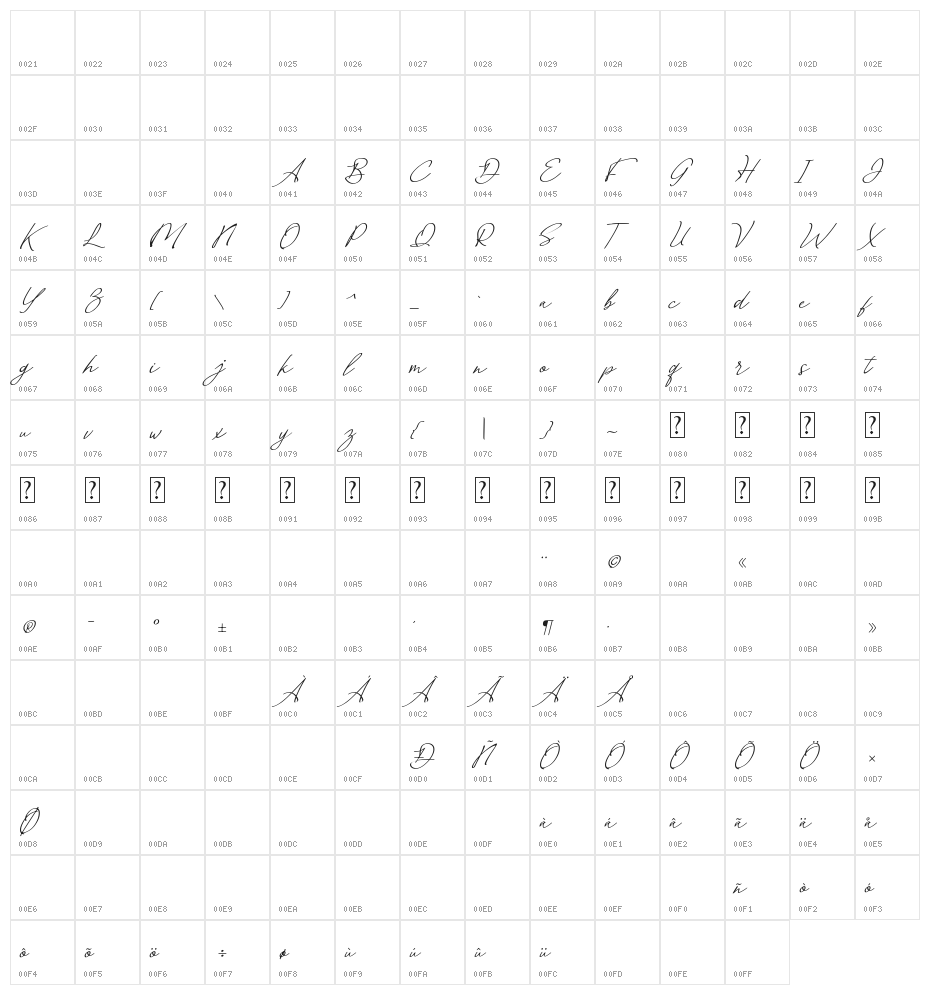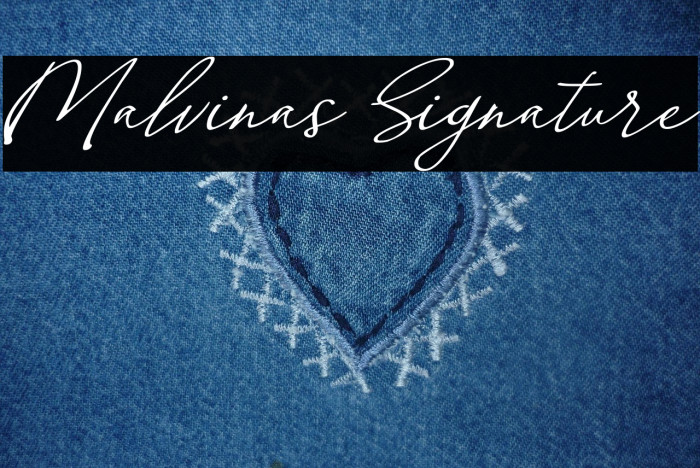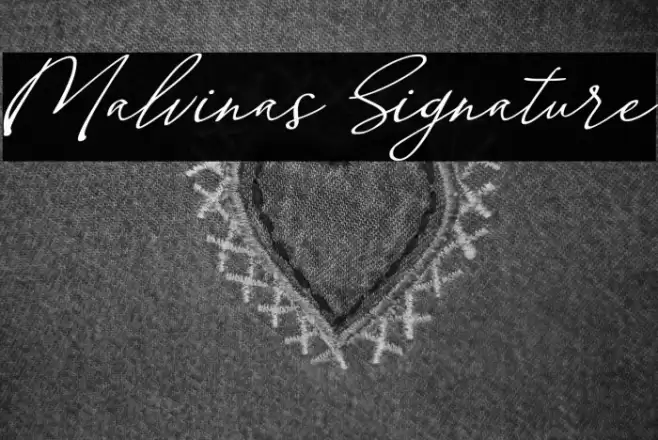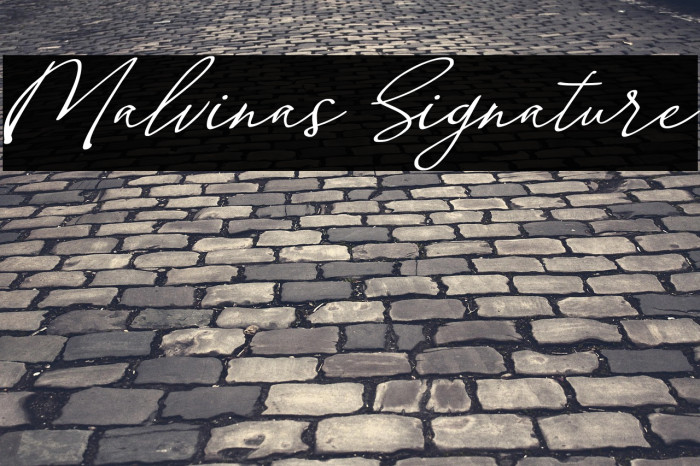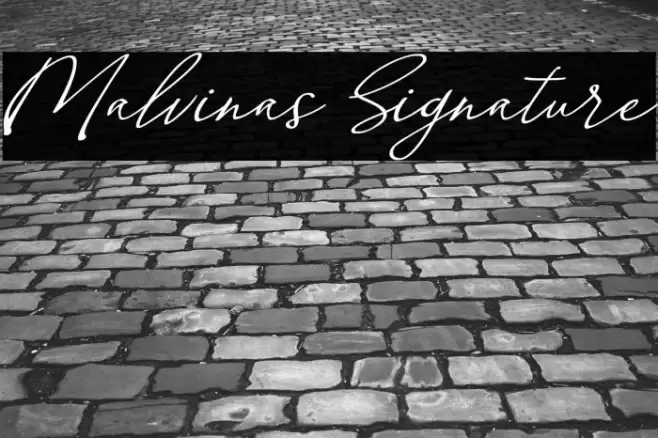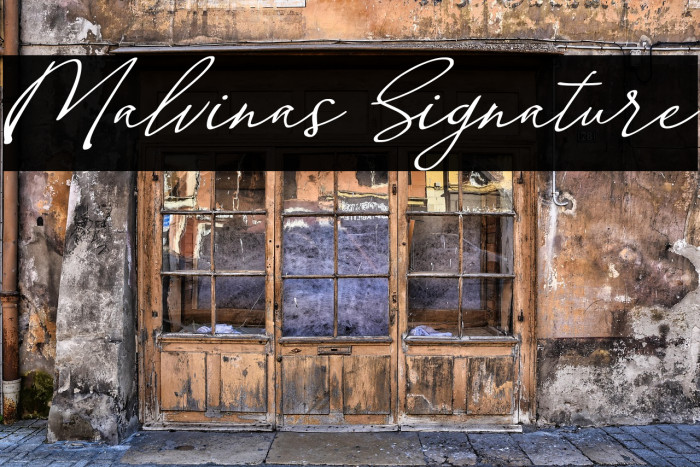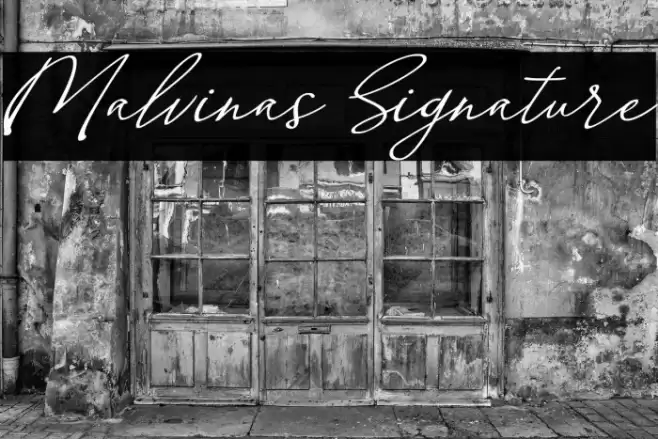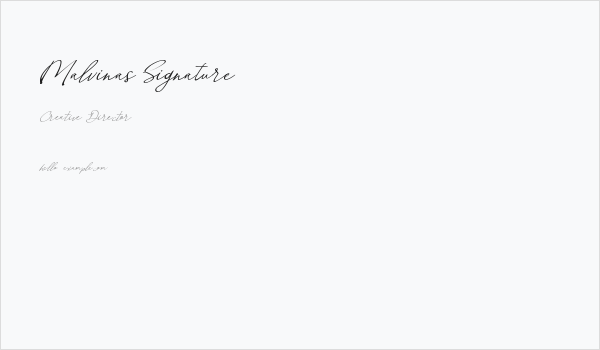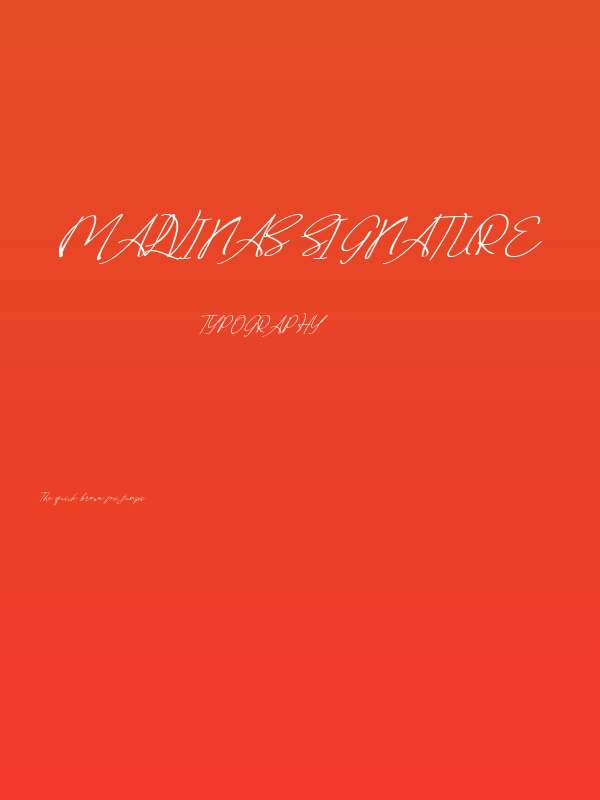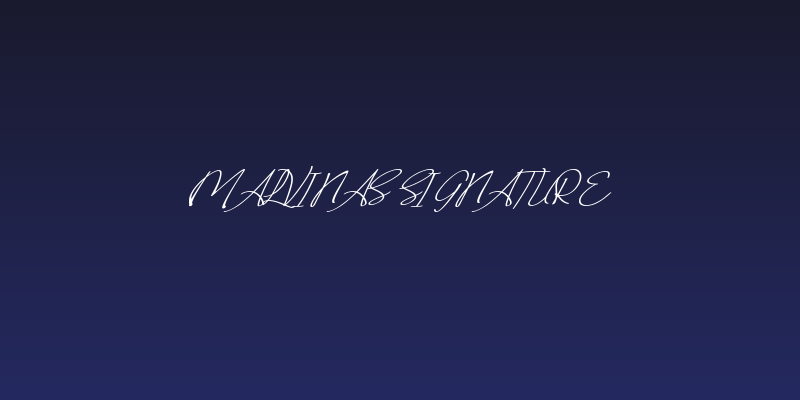
Malvinas Signature Font
Malvinas Signature Description
This font exudes elegance and sophistication with its flowing, cursive script style. The letters are intricately designed, featuring smooth, continuous strokes that mimic the fluidity of handwriting. The uppercase letters are grand and sweeping, while the lowercase letters maintain a consistent, graceful flow. This font is perfect for adding a personal touch to any project, as it captures the essence of a handwritten signature. The characters are well-spaced, ensuring readability while maintaining an artistic flair. The overall design is both modern and timeless, making it suitable for a variety of applications.
| Overall Style | Elegant, Modern |
| Use Case | Logos, Invitations, Personal Signatures |
| Proposed Projects | Ideal for wedding invitations, branding, personal signatures, and elegant stationery. |